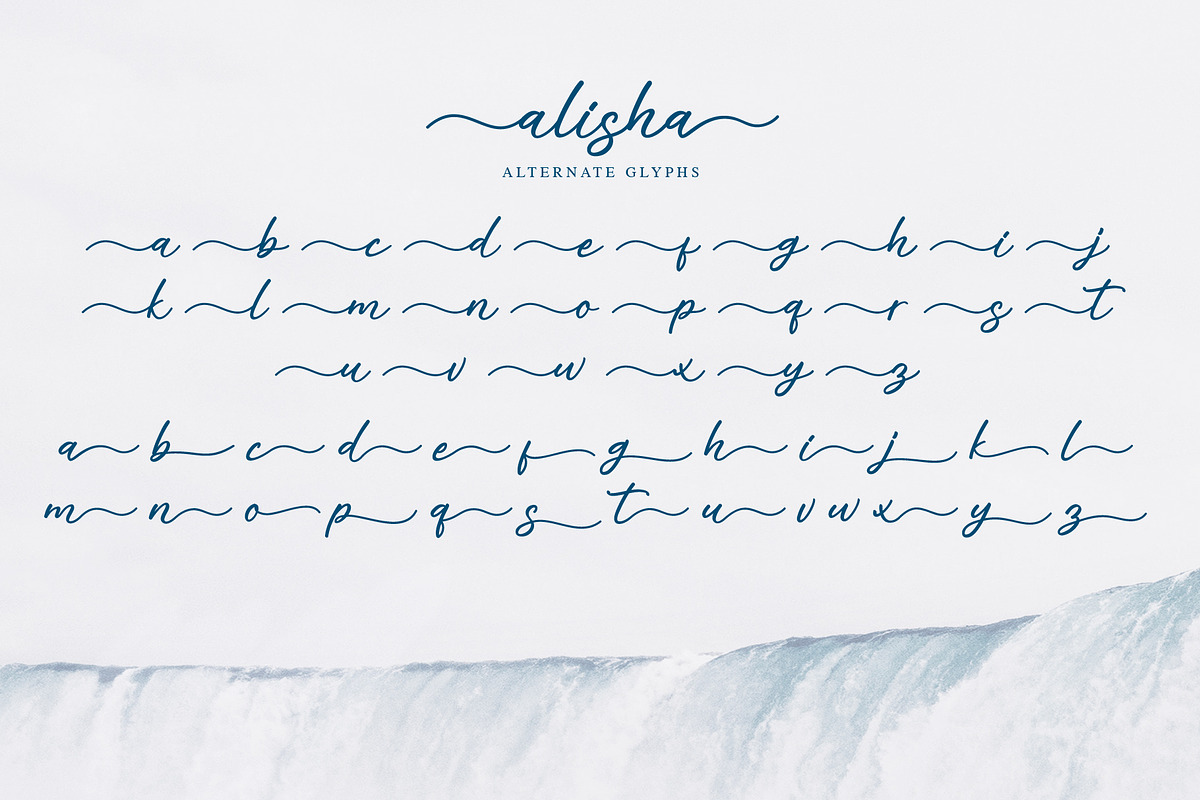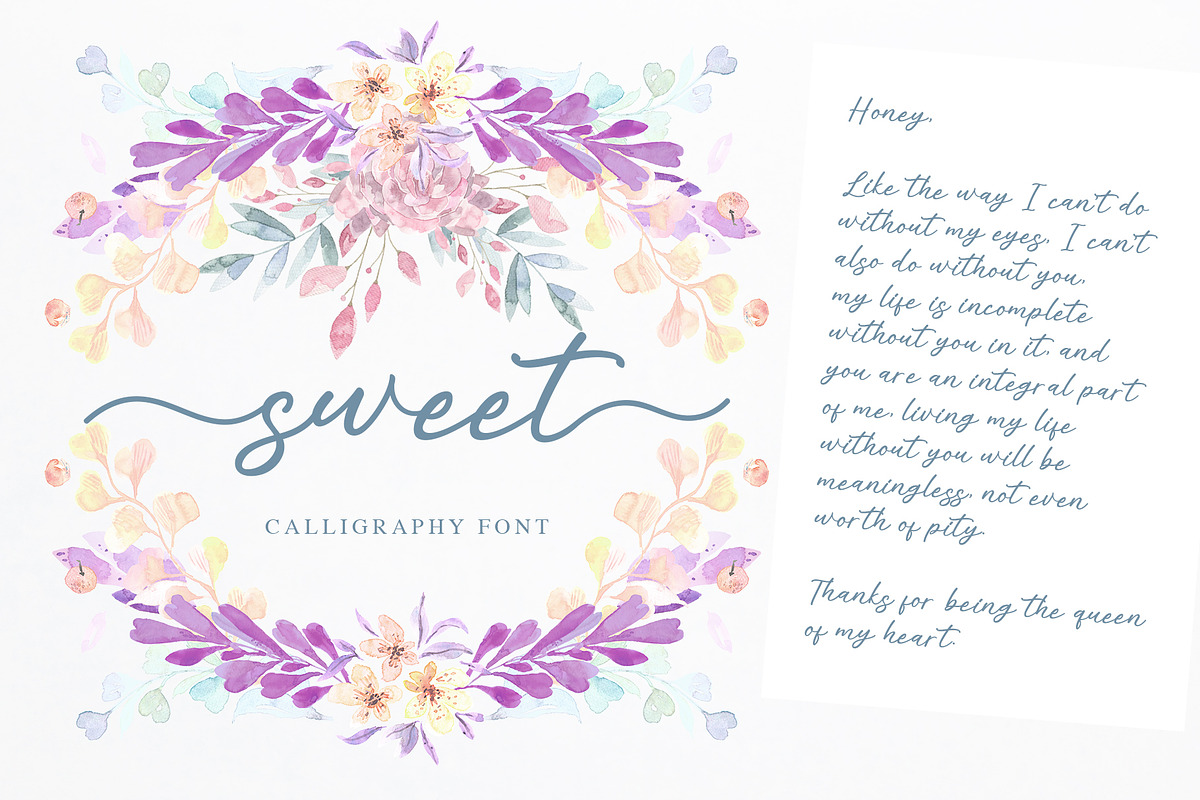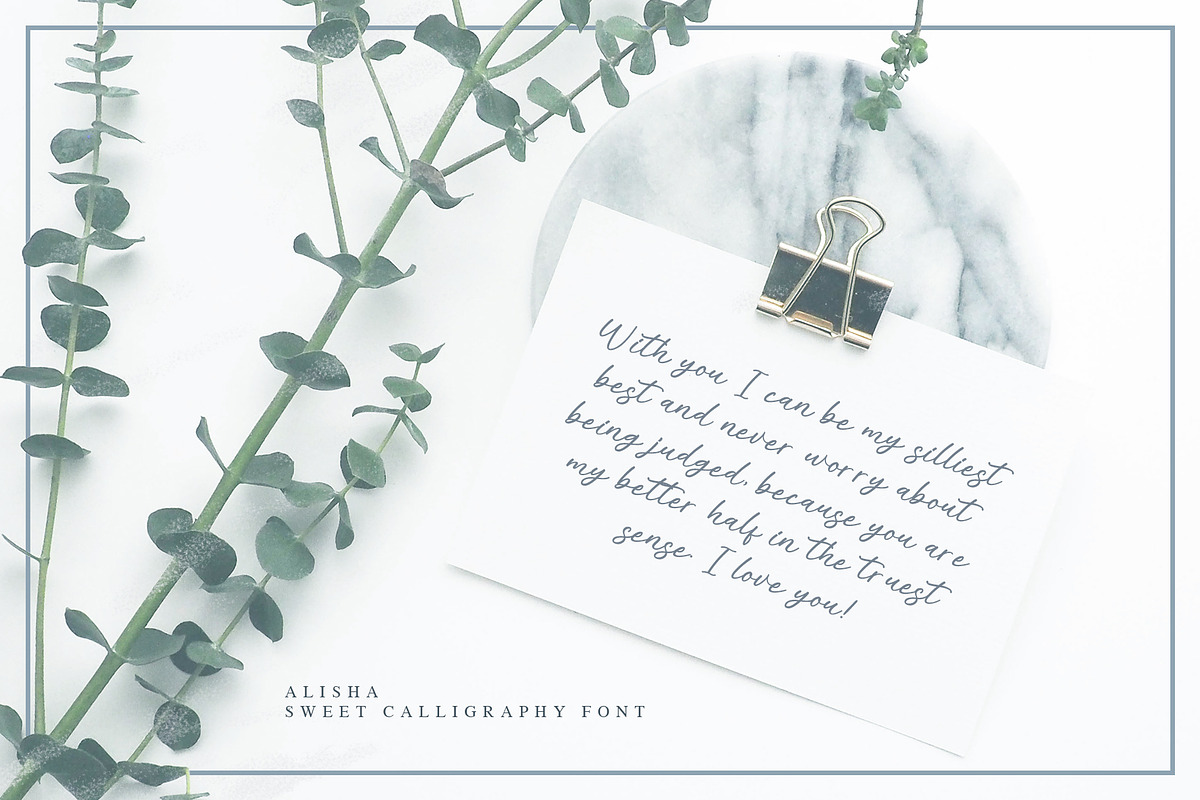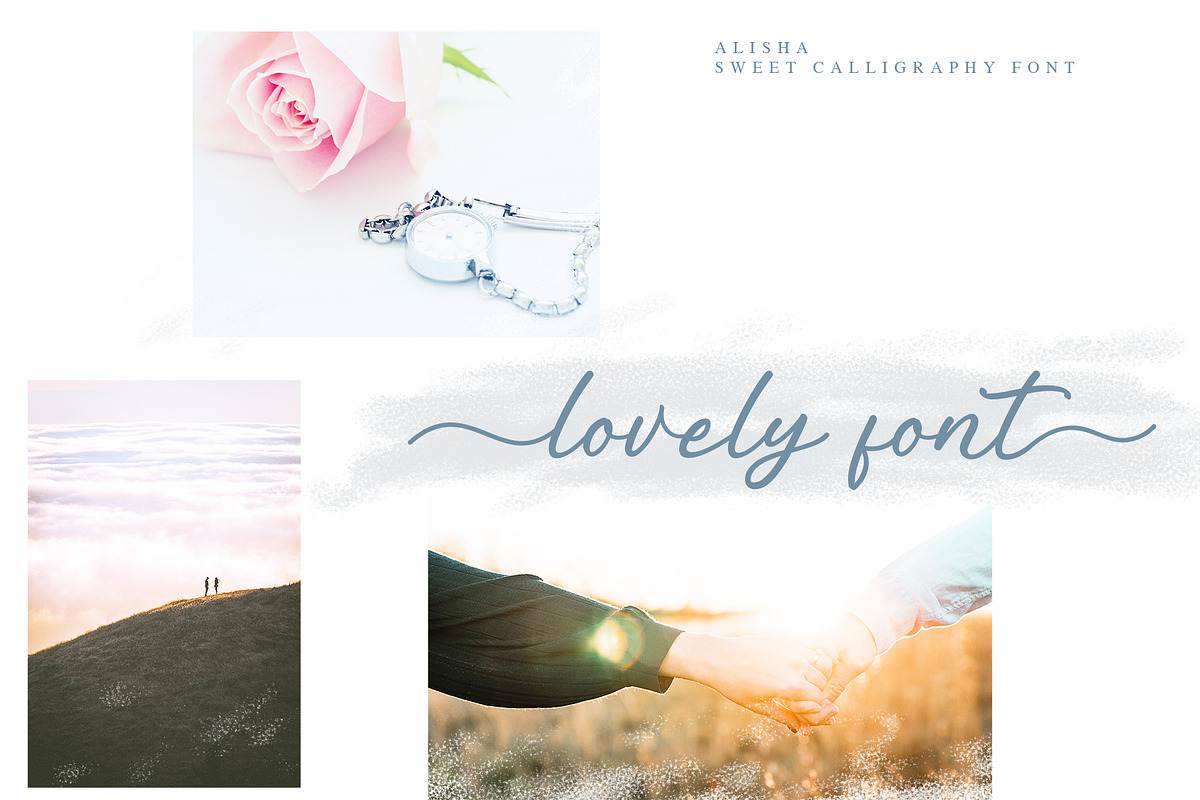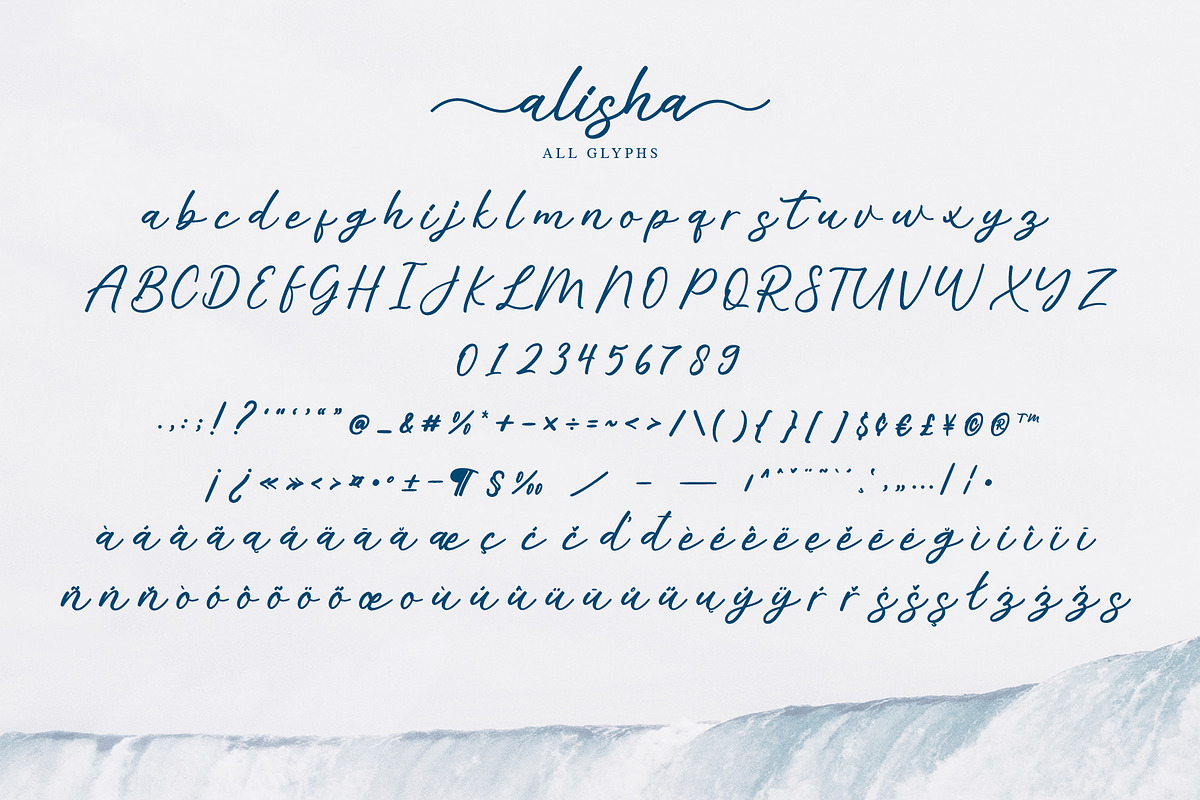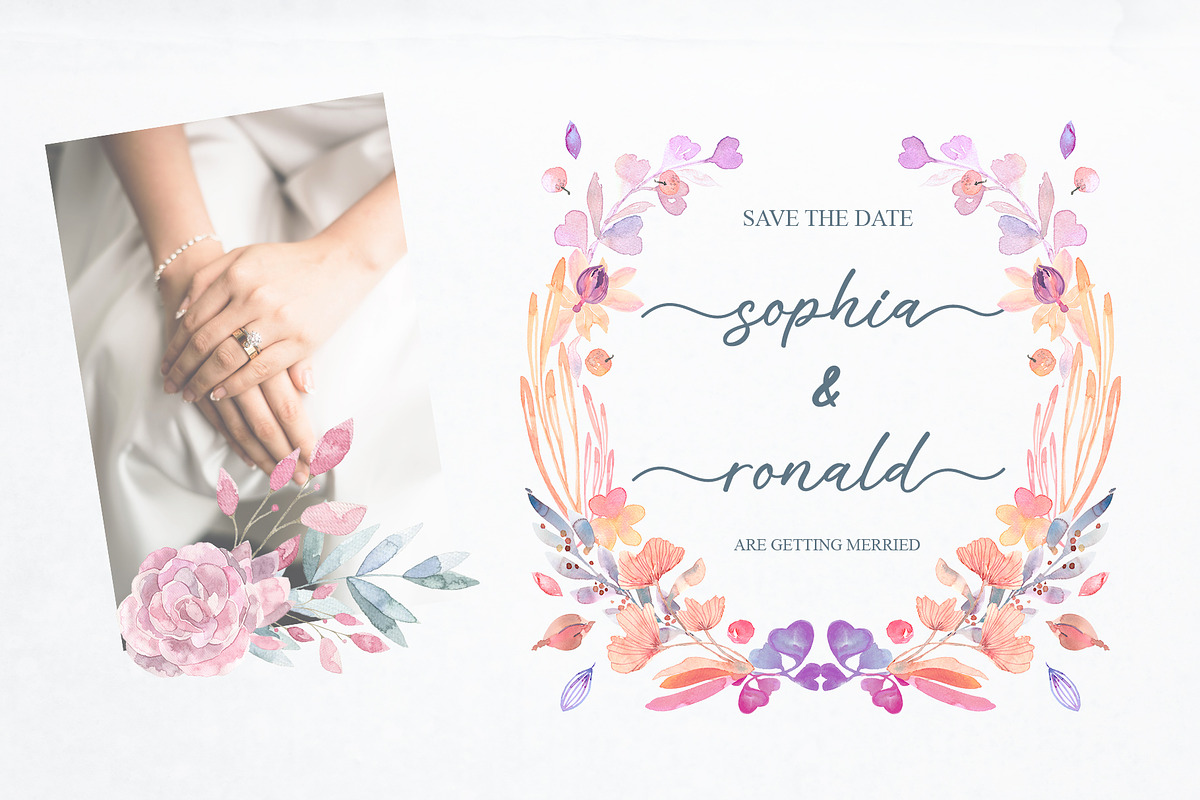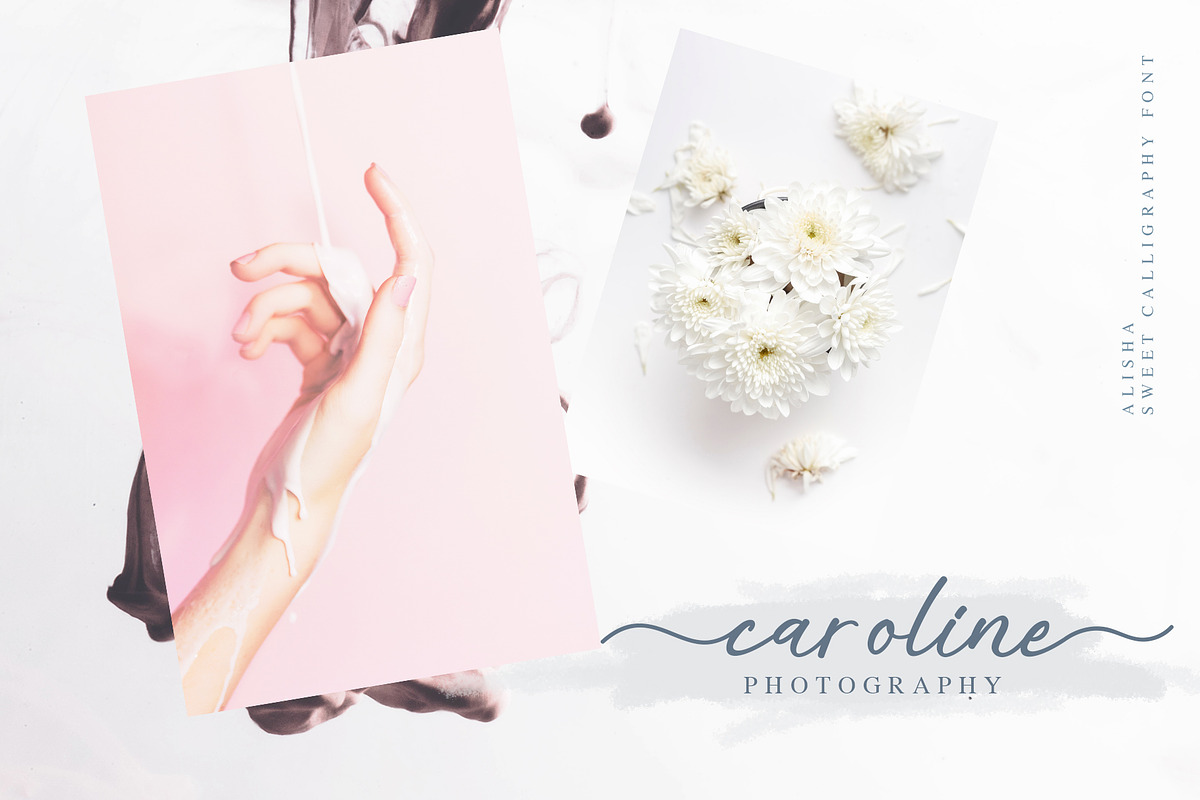
alisha | Sweet Calligraphy Font
Hello everyone, this time we would like to introduce a sweet calligraphy font that we just made with passion and enthusiastic, this font comes with a touch of lovely font.
Introducing this sweet calligraphy font called "alisha | Sweet Calligraphy Font", this lovely font comes with uppercase letters, lowercase letters, multilingual support, numbers and punctuation. This sweet calligraphy font is suitable for you to use as quotes, instagram posts, invitations, magazines, cards, product packaging, headers and whatever your imagination.
alisha | Sweet Calligraphy Font by alphArtype fits naturally into Branding, posters, packaging, typography.